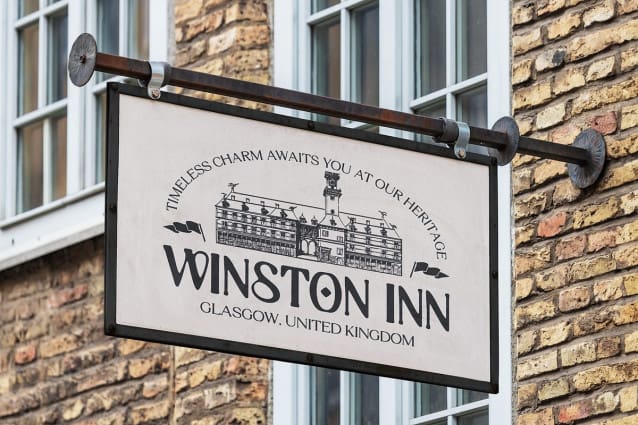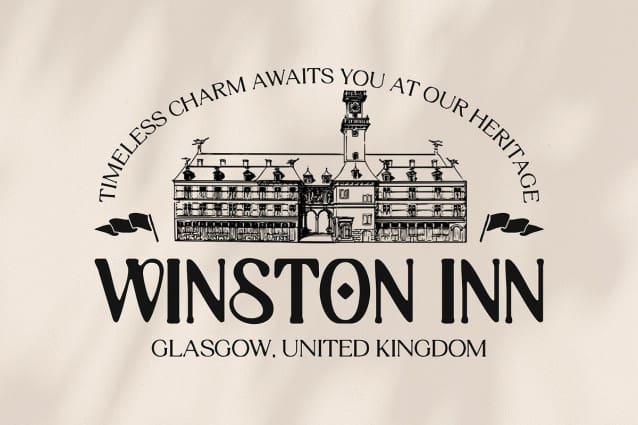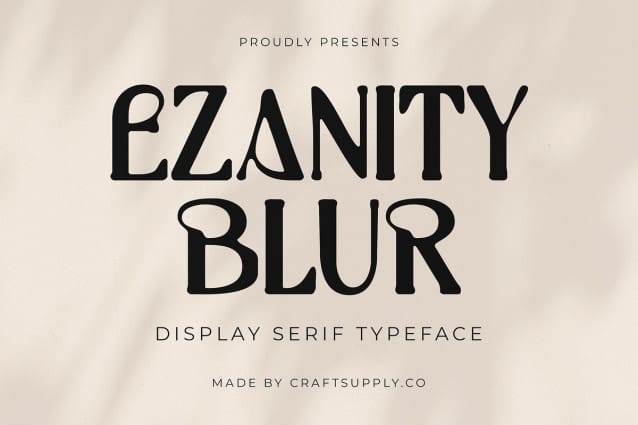
Ezanity Blur Font
Ezanity Blur Font is a modern serif font that draws inspiration from the timeless beauty of the Art Nouveau movement. With its graceful curves, intricate decorative details, and flowing forms, this font exudes an artistic elegance reminiscent of nature-inspired designs from the late 19th century. The ornamental elements in its letterforms capture the essence of artistic craftsmanship, bringing a classic yet refined feel to any design project.
Blur Effect for Artistic Sophistication The soft blur effect that defines Ezanity Blur adds an extra layer of visual intrigue and sophistication. This subtle, artistic blur creates a sense of fluidity and depth, making the font stand out while retaining a sense of grace and refinement. The blurred details smooth out the edges of its characters, making it feel both dreamy and modern, while still maintaining readability. This effect lends a unique, ethereal quality that works beautifully in creative, luxury-oriented projects.
Perfect for High-End and Elegant Designs Ezanity Blur is the perfect choice for high-end branding, luxury invitations, and formal editorial designs. Its distinctive blend of classic Art Nouveau influences and contemporary blur aesthetics makes it an excellent fit for projects that demand both creativity and elegance. From fashion magazines to upscale product packaging, this font will elevate your design with its unique artistic charm.